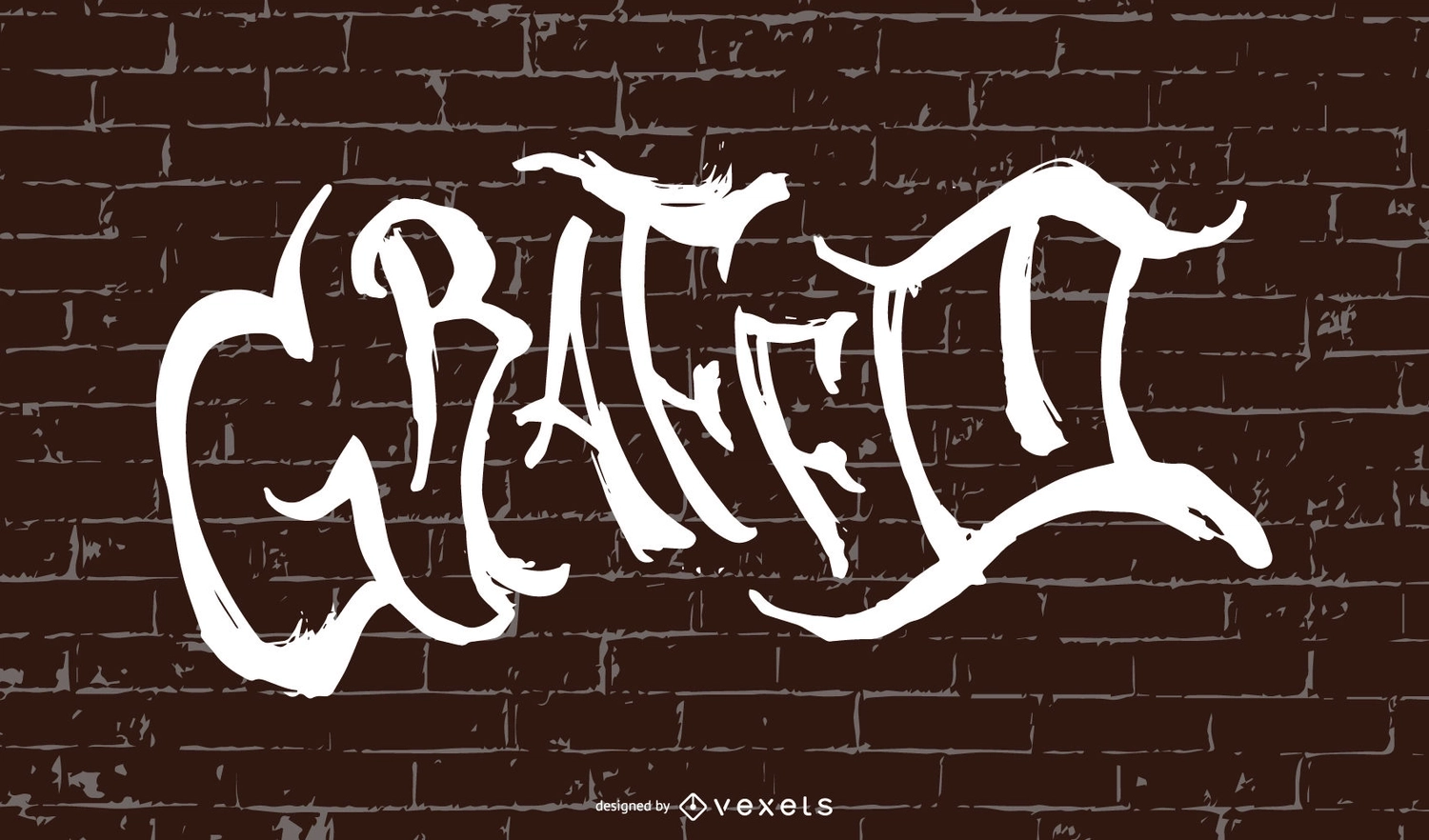
Beautiful Graffiti Font Design On Wall
Beautiful graffiti font design features street art graffiti label drawn over a brick wall background. Perfect for urban culture designs and more